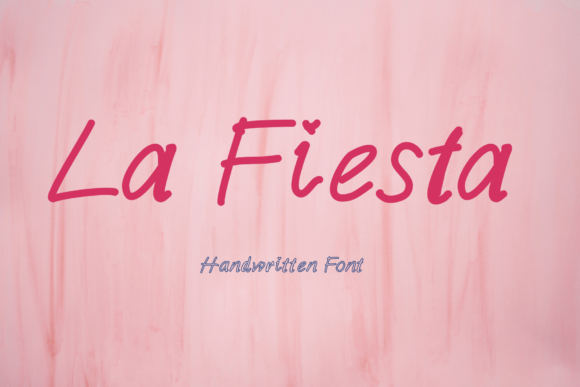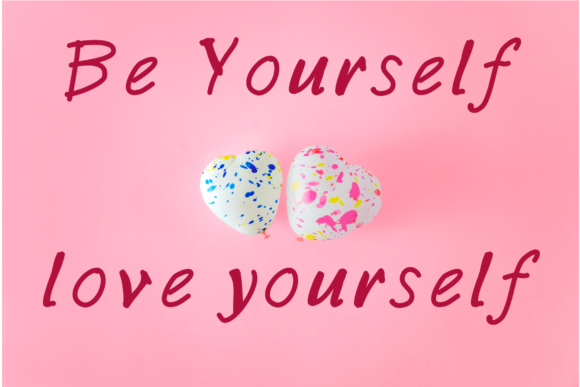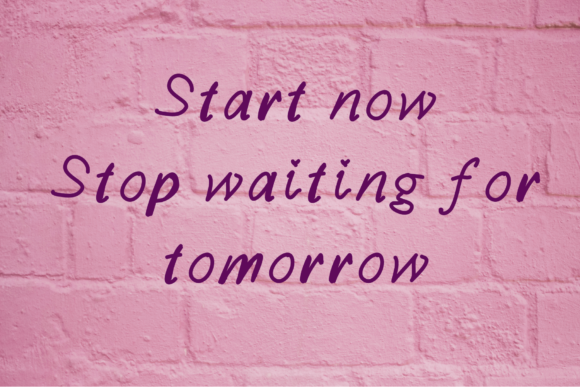
About La Fiesta Font
La Fiesta is a font that exudes flowing elegance, making it a perfect choice for a variety of design projects. Its elegant touch enhances your creations, adding a touch of handwritten allure that captivates the eye.
With its flowing nature, La Fiesta brings a sense of grace and fluidity to your designs. Whether you’re working on invitations, branding materials, social media graphics, or any other project, this font elevates each creation with its effortless beauty.
La Fiesta’s timeless style adds a touch of classic sophistication to your designs, making them stand out beautifully and ensuring their appeal remains evergreen.
Incorporating La Fiesta into your designs allows you to create spectacular pieces. Its flowing handwritten essence serves as a canvas for your imagination, empowering you to craft visually striking and captivating designs.
The font’s distinctiveness makes it a true favorite, capturing hearts with its mesmerizing beauty.
Fall in love with La Fiesta’s versatility as it transforms your ideas into spectacular designs that resonate with elegance and timeless charm.
In summary, La Fiesta is more than just a font; it’s a flowing masterpiece that enhances your favorite projects. Embrace its beauty and fall in love with its timeless elegance. With La Fiesta, your designs become true expressions of grace and allure that leave a lasting impact on all who encounter them. Let La Fiesta be the font that elevates your creative journey, turning your projects into spectacular works of art that captivate and inspire.